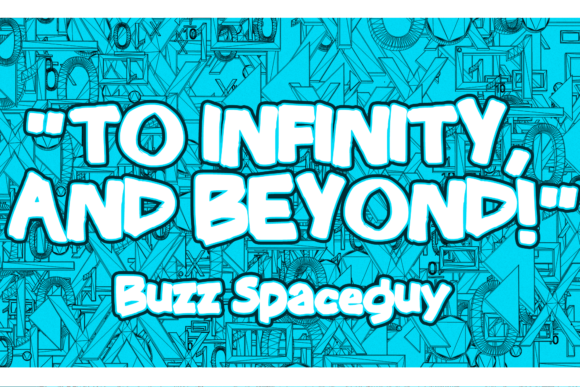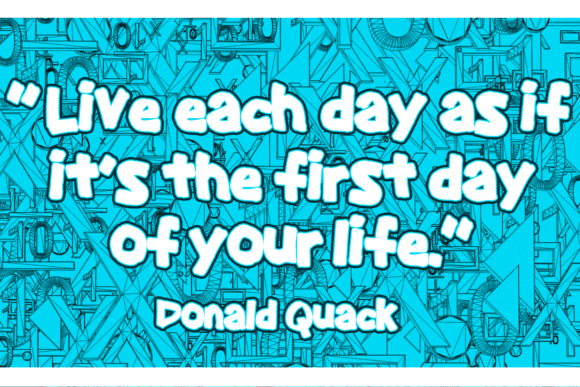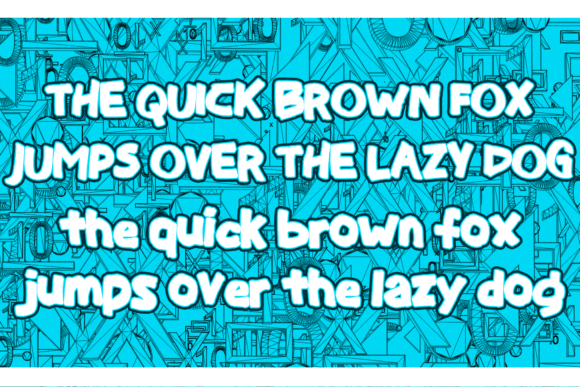
Introducing Chunky Comic Font: The Ultimate Bold and Fun Font for Designers and Crafters
Are you tired of using the same old fonts in your designs? Look no further! Chunky Comic Font is here to revolutionize your creative projects with its bold, fun, and incredibly versatile style. This fantastic font is perfect for designers and crafters who want to add a strong yet friendly touch to their work. Whether you’re designing t-shirts, book covers, illustrations, greeting cards, stickers, or posters, Chunky Comic Font is the perfect choice.
What Makes Chunky Comic Font So Special?
Chunky Comic Font is a bold and fun comic font that’s sure to capture the attention of your audience. Its unique and playful style makes it perfect for a wide range of design projects. Here are just a few reasons why you’ll love Chunky Comic Font:
• Versatility: Chunky Comic Font is incredibly versatile, making it suitable for a variety of design projects, from children’s book illustrations to bold poster designs.
• Friendliness: The font’s friendly and approachable style makes it perfect for designs that require a personal touch, such as greeting cards and stickers.
• Boldness: Chunky Comic Font is bold and eye-catching, making it ideal for designs that need to stand out, such as t-shirt designs and poster graphics.
Endless Design Possibilities with Chunky Comic Font
The possibilities are endless when it comes to using Chunky Comic Font in your designs. Here are just a few ideas to get you started:
• T-Shirt Designs: Create bold and eye-catching t-shirt designs that are sure to turn heads.
• Book Covers: Use Chunky Comic Font to create fun and engaging book covers that will appeal to readers of all ages.
• Illustrations: Add a playful touch to your illustrations with Chunky Comic Font, perfect for children’s books, comics, and graphic novels.
• Greeting Cards: Create personalized and friendly greeting cards for any occasion.
• Stickers and Posters: Use Chunky Comic Font to create bold and eye-catching stickers and posters that will grab attention.
Why Designers and Crafters Love Chunky Comic Font
Designers and crafters love Chunky Comic Font for its unique and versatile style. Here are just a few reasons why:
• Easy to Read: Chunky Comic Font is easy to read, even in large and small sizes.
• Highly Legible: The font’s bold style makes it highly legible, perfect for designs that need to be read quickly.
• Fun and Playful: Chunky Comic Font adds a fun and playful touch to any design, making it perfect for creative projects.
Get Creative with Chunky Comic Font
Ready to fall in love with Chunky Comic Font? With its incredibly versatile style, you can create a wide range of designs that are sure to impress. Whether you’re a designer, crafter, or DIY enthusiast, Chunky Comic Font is the perfect choice for your next creative project.
In conclusion, Chunky Comic Font is a must-have font for designers and crafters who want to add a strong yet friendly touch to their designs. Its versatility, friendliness, and boldness make it perfect for a wide range of creative projects. So go ahead, get creative, and fall in love with Chunky Comic Font!